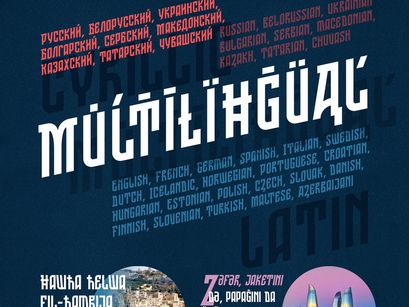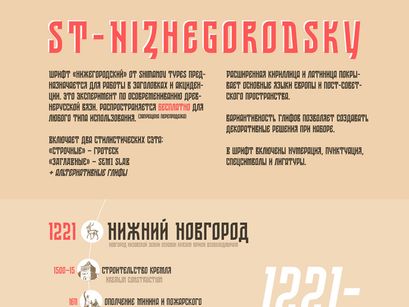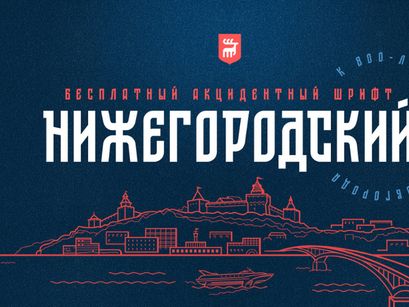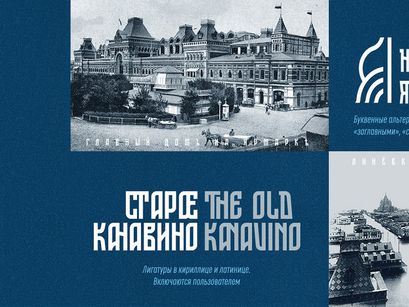
ST-NIZHEGORODSKY by Alexander Shimanov (https://www.instagram.com/alexshimanov/) is a typeface suitable for branding, typography, and design projects. The font comes with uppercase characters, numbers, and symbols. Feel free to download and use this font in your next projects. Its large and all-bold design is perfect for your website banners, headers, and even titles for content. It can also be used for print projects for packages, merch, and labels.
• Uppercase letters
• Numbering and Punctuations
• Accented characters
• Multiple Languages Supported